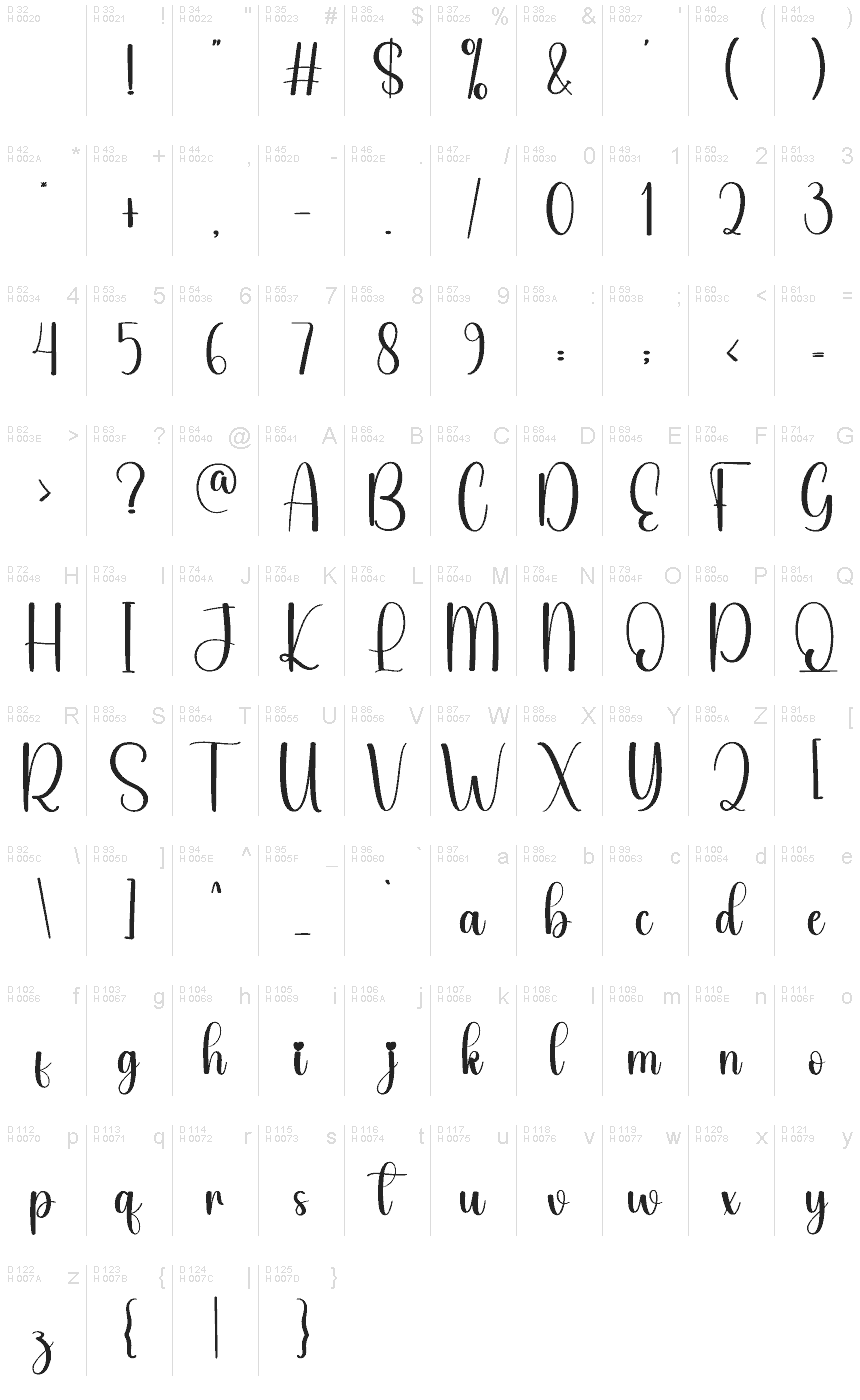
Meeting
Meeting font is a free handwritten font designed by Andi Moz with a personal touch and casual elegance. As its seamless curved letters blend among themselves, smoothness and modernity become the keywords that perfectly describe this pleasing font. Its beauty lies in the simplicity it holds while maintaining elegant aesthetics for brandings, advertisements, posters, labels, and more.
Use Meeting to design signatures for artworks where attention to detail is of the utmost importance or utilize its romantic touch in wedding invitation cards that amaze invitees from first sight. Business cards, identity projects elements, logos, brand names can all benefit as well when using this nice free-flowing font!